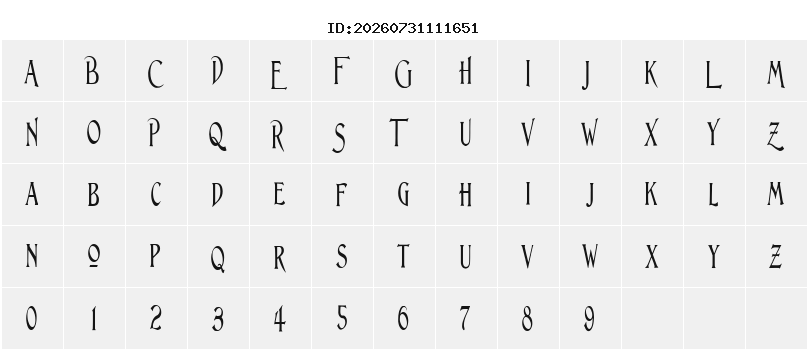
• Font Name: Lightfoot Narrow
• Font Style: Extra-condensed Regular
• Full Font Name: Lightfoot Narrow Extra-condensed Regular
• Designer: PJL
About Lightfoot Narrow.ttf
Lightfoot Narrow.ttf is a modern, elegant sans-serif font designed for ultimate readability and visual harmony. Perfect for branding, headlines, web design, and print materials.